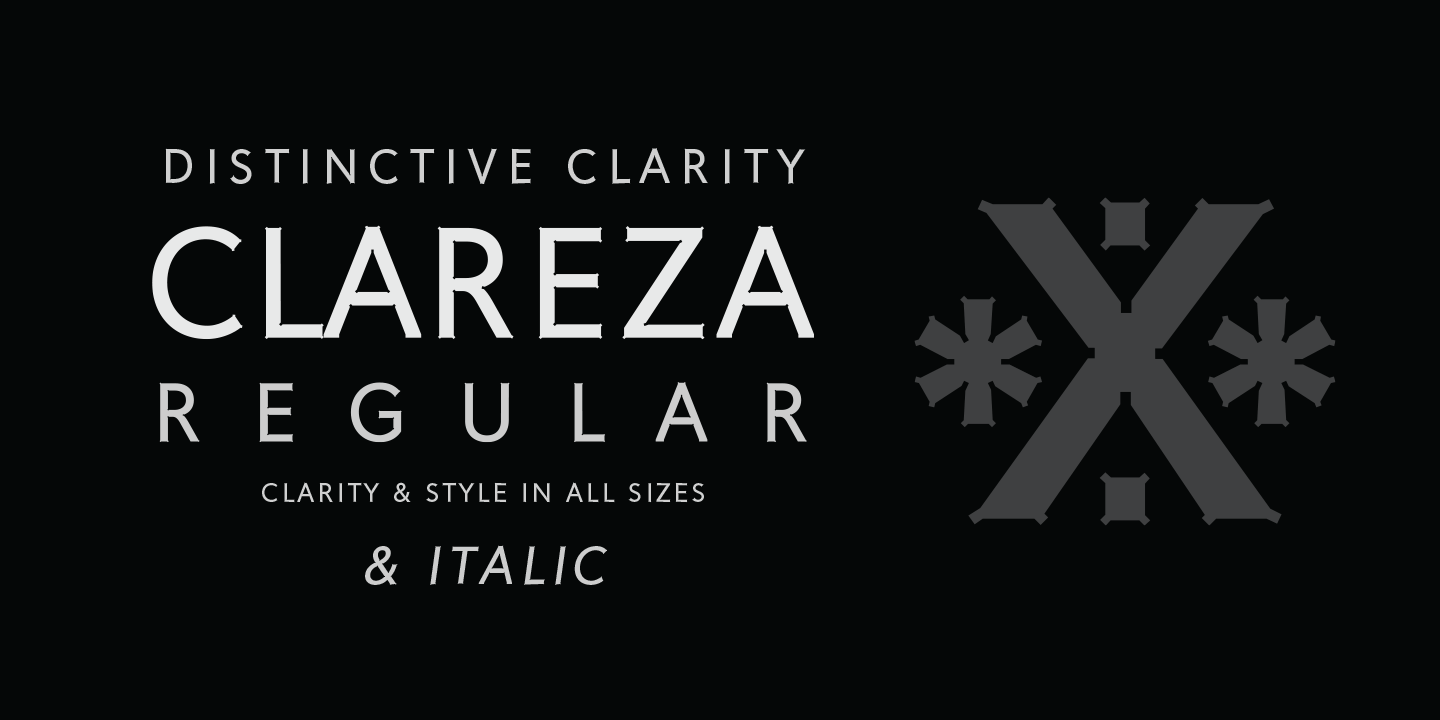
About Clareza
Clareza means ?Clarity? in Portuguese. That was exactly the goal in creating this font. We managed to create a font that is crisp and extremely legible at all sizes but then comes to life in an interesting and unusual way when used as a display font.…